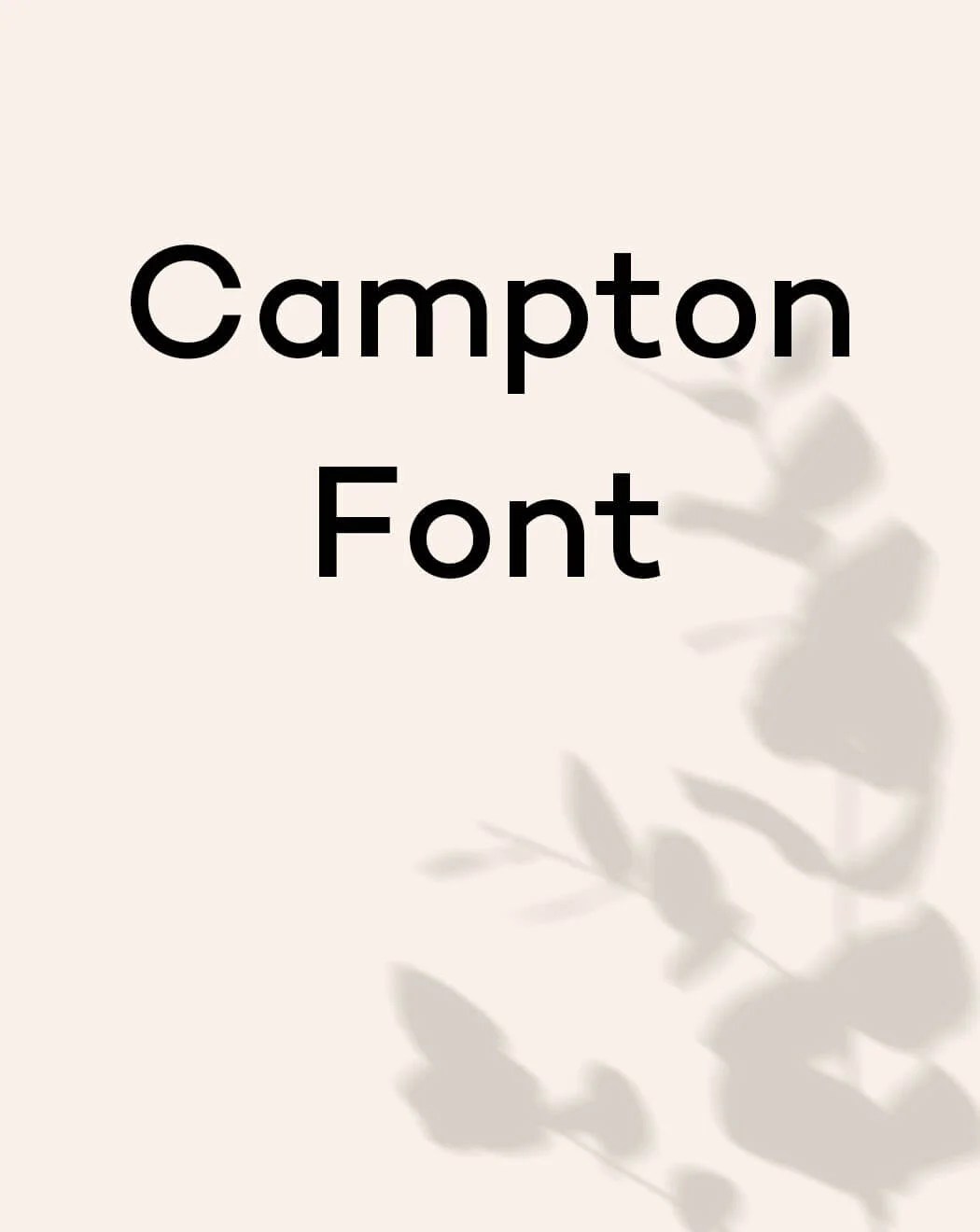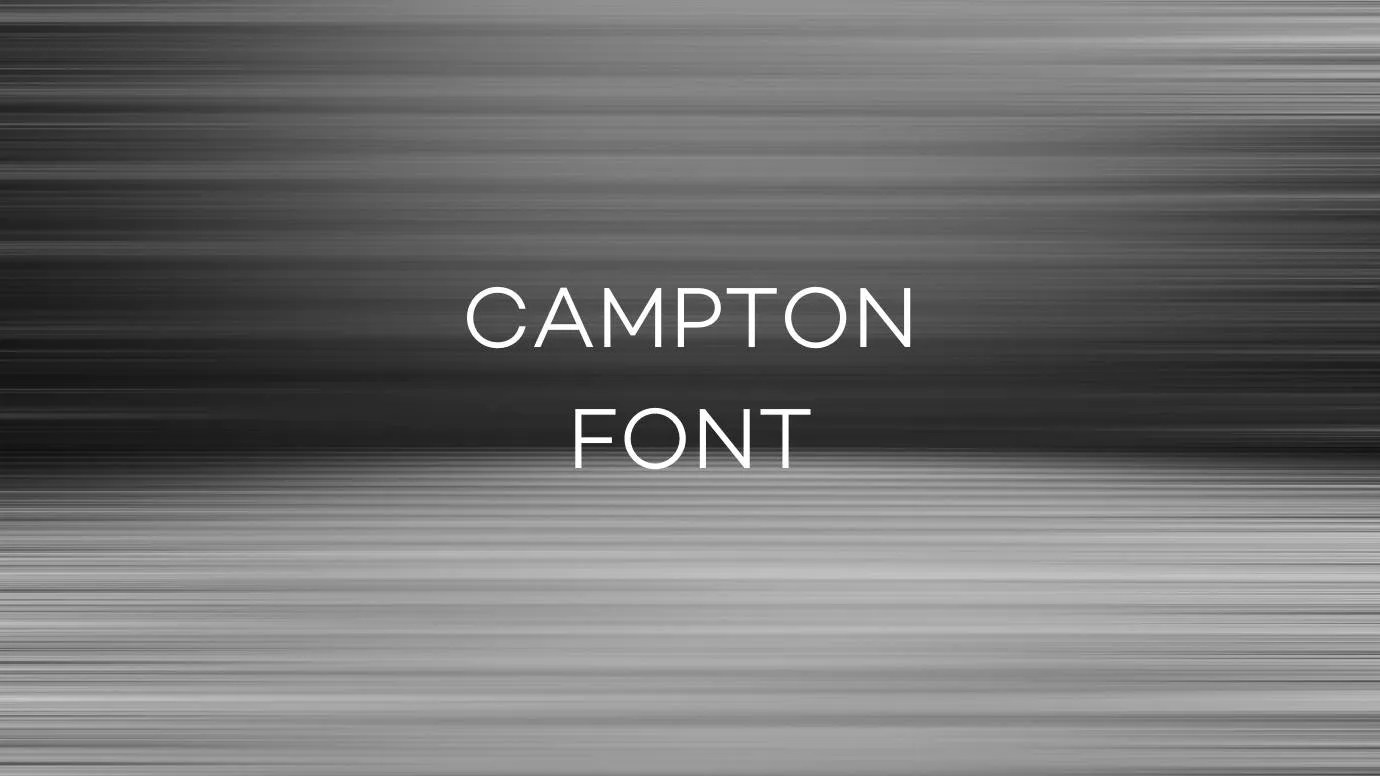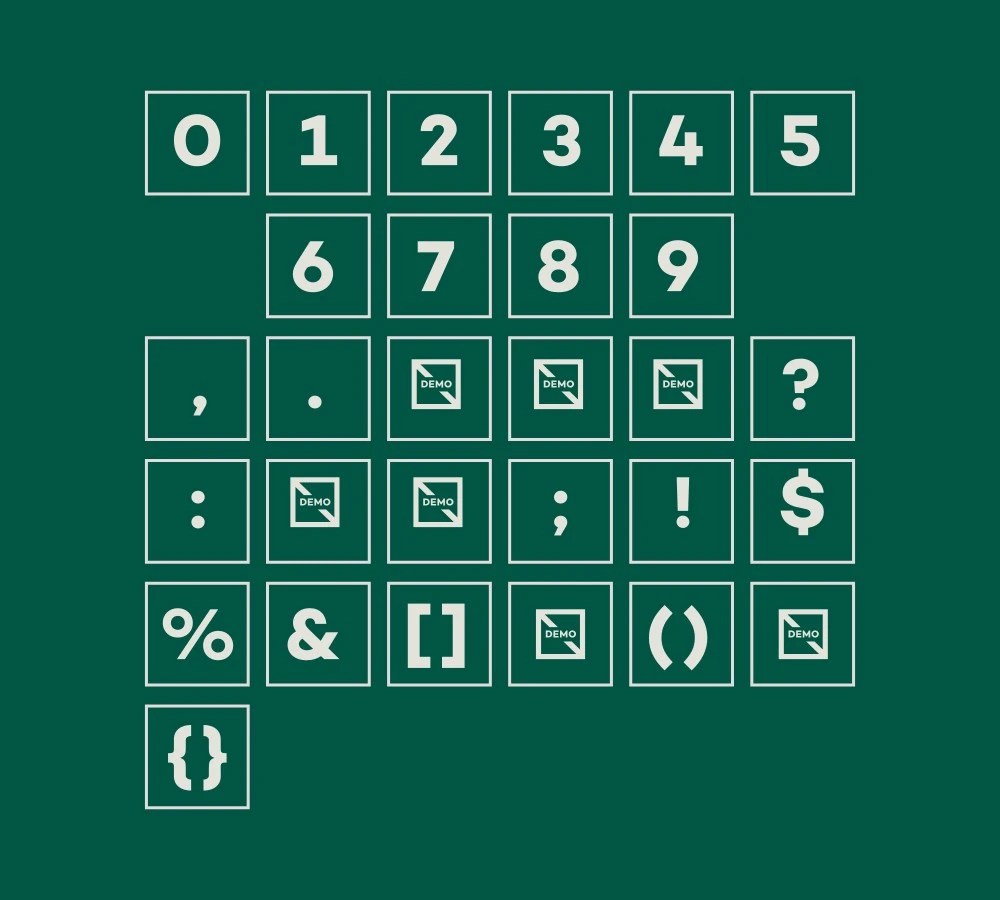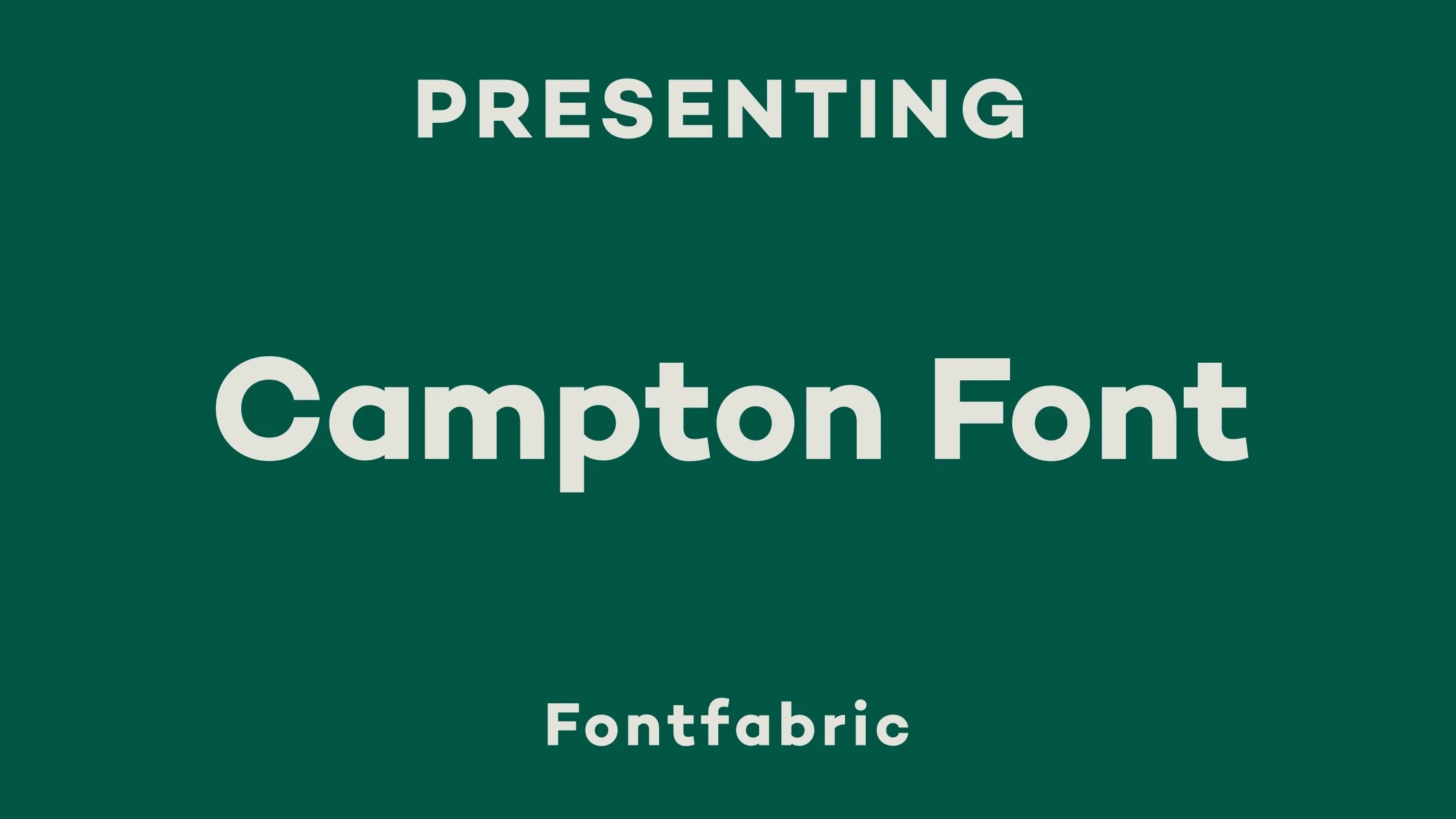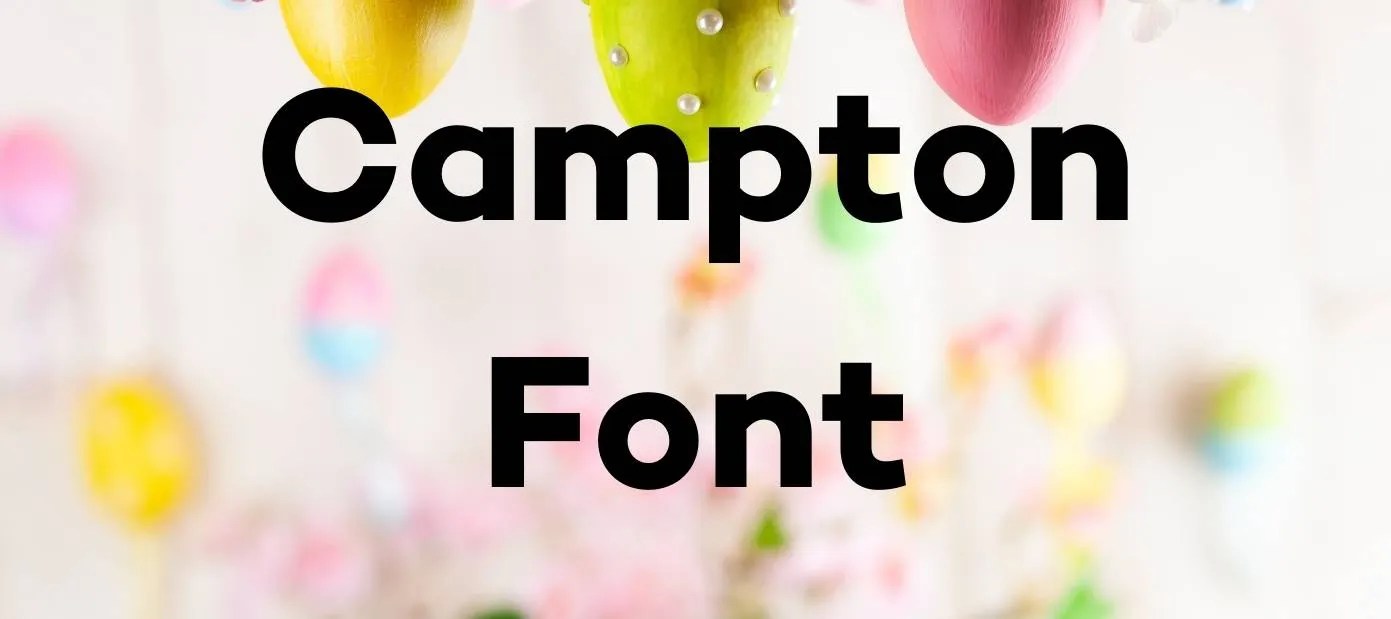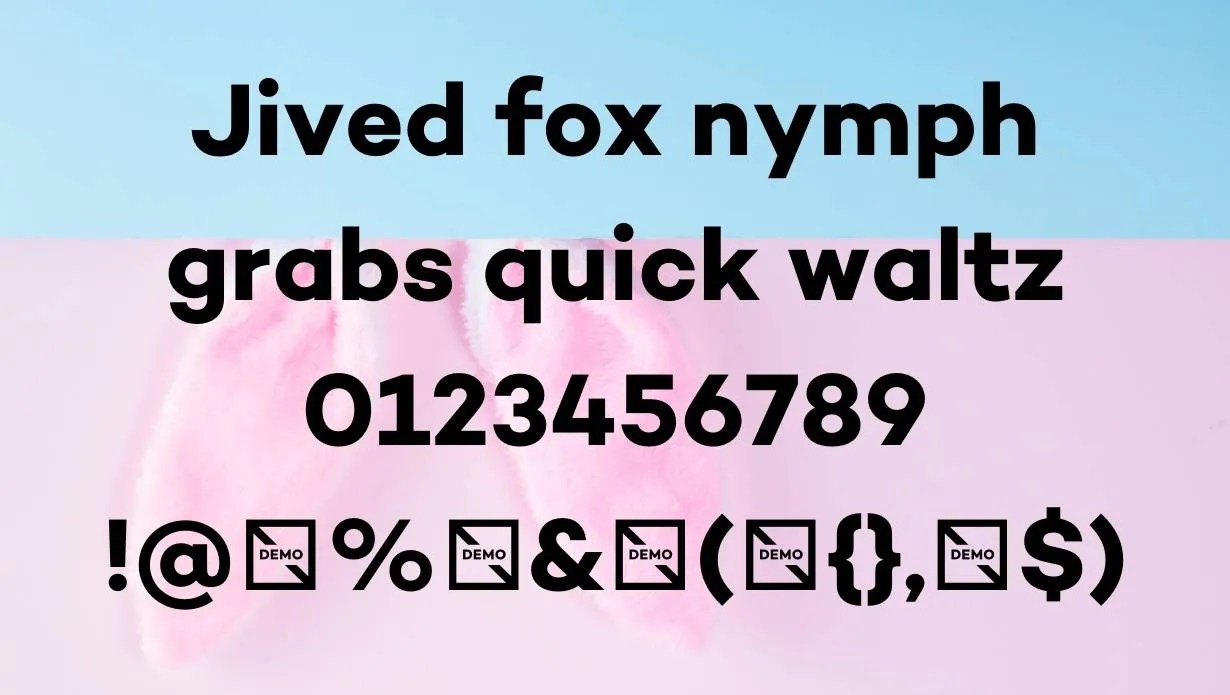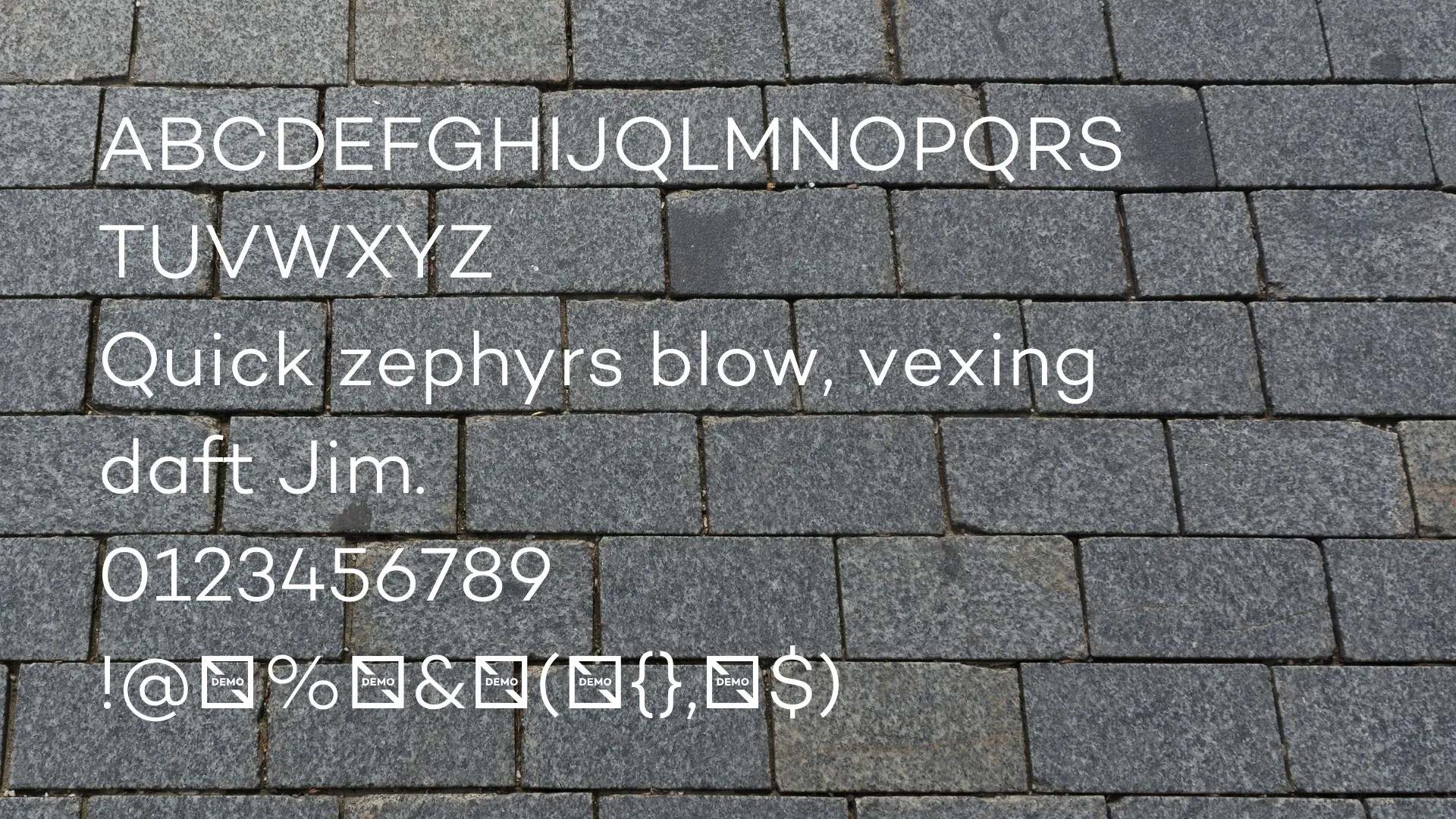
Campton Font Download . Campton bold font, campton light font. Campton is an unconventional typeface based on the first steps of the newly born sans serif genre in the early twentieth century. 2 campton fonts available free. Campton font family designed by rené bieder has a total of 18 different styles. Download check out more add collection. You can download the campton font to your computer or use it on. Moreover, you can embed it to. This typeface has eighteen styles and was published by rené bieder. This font was used for the first time in 2015, and because it looks clean and modern and can be.
This typeface has eighteen styles and was published by rené bieder. 2 campton fonts available free. Campton font family designed by rené bieder has a total of 18 different styles. Moreover, you can embed it to. You can download the campton font to your computer or use it on. Download check out more add collection. This font was used for the first time in 2015, and because it looks clean and modern and can be. Campton bold font, campton light font. Campton is an unconventional typeface based on the first steps of the newly born sans serif genre in the early twentieth century.
Campton Font Download Moreover, you can embed it to. 2 campton fonts available free. This font was used for the first time in 2015, and because it looks clean and modern and can be. Campton is an unconventional typeface based on the first steps of the newly born sans serif genre in the early twentieth century. Download check out more add collection. You can download the campton font to your computer or use it on. Moreover, you can embed it to. Campton font family designed by rené bieder has a total of 18 different styles. Campton bold font, campton light font. This typeface has eighteen styles and was published by rené bieder.
Campton Font free download Fontspace.io Campton Font Download Campton is an unconventional typeface based on the first steps of the newly born sans serif genre in the early twentieth century. This font was used for the first time in 2015, and because it looks clean and modern and can be. You can download the campton font to your computer or use it on. Campton bold font, campton light. Campton Font Download.
Campton W00 Bold DEMO 1.00 Fonts Free Download Campton Font Download This typeface has eighteen styles and was published by rené bieder. 2 campton fonts available free. Download check out more add collection. Campton is an unconventional typeface based on the first steps of the newly born sans serif genre in the early twentieth century. Moreover, you can embed it to. Campton font family designed by rené bieder has a total. Campton Font Download.
the font and numbers are all in different colors, shapes, and sizes for Campton Font Download Campton bold font, campton light font. Download check out more add collection. This typeface has eighteen styles and was published by rené bieder. Moreover, you can embed it to. Campton font family designed by rené bieder has a total of 18 different styles. Campton is an unconventional typeface based on the first steps of the newly born sans serif genre. Campton Font Download.
Campton Font Free Download Campton Font Download Campton bold font, campton light font. You can download the campton font to your computer or use it on. Download check out more add collection. Campton font family designed by rené bieder has a total of 18 different styles. This font was used for the first time in 2015, and because it looks clean and modern and can be. Moreover,. Campton Font Download.
Campton Font Free Download Free Fonts World Campton Font Download check out more add collection. Campton bold font, campton light font. Campton font family designed by rené bieder has a total of 18 different styles. 2 campton fonts available free. This typeface has eighteen styles and was published by rené bieder. This font was used for the first time in 2015, and because it looks clean and modern and. Campton Font Download.
Campton Font Free Dafont Free Campton Font Download Moreover, you can embed it to. Campton is an unconventional typeface based on the first steps of the newly born sans serif genre in the early twentieth century. This font was used for the first time in 2015, and because it looks clean and modern and can be. You can download the campton font to your computer or use it. Campton Font Download.
Campton Font Free Download Free Fonts Campton Font Download 2 campton fonts available free. Campton font family designed by rené bieder has a total of 18 different styles. This typeface has eighteen styles and was published by rené bieder. Campton is an unconventional typeface based on the first steps of the newly born sans serif genre in the early twentieth century. Download check out more add collection. You can. Campton Font Download.
Campton Font Free Download Campton Font Download You can download the campton font to your computer or use it on. Moreover, you can embed it to. Download check out more add collection. This font was used for the first time in 2015, and because it looks clean and modern and can be. Campton is an unconventional typeface based on the first steps of the newly born sans. Campton Font Download.
Campton Fonts Shmonts Campton Font Download Moreover, you can embed it to. You can download the campton font to your computer or use it on. 2 campton fonts available free. Download check out more add collection. Campton font family designed by rené bieder has a total of 18 different styles. Campton is an unconventional typeface based on the first steps of the newly born sans serif. Campton Font Download.